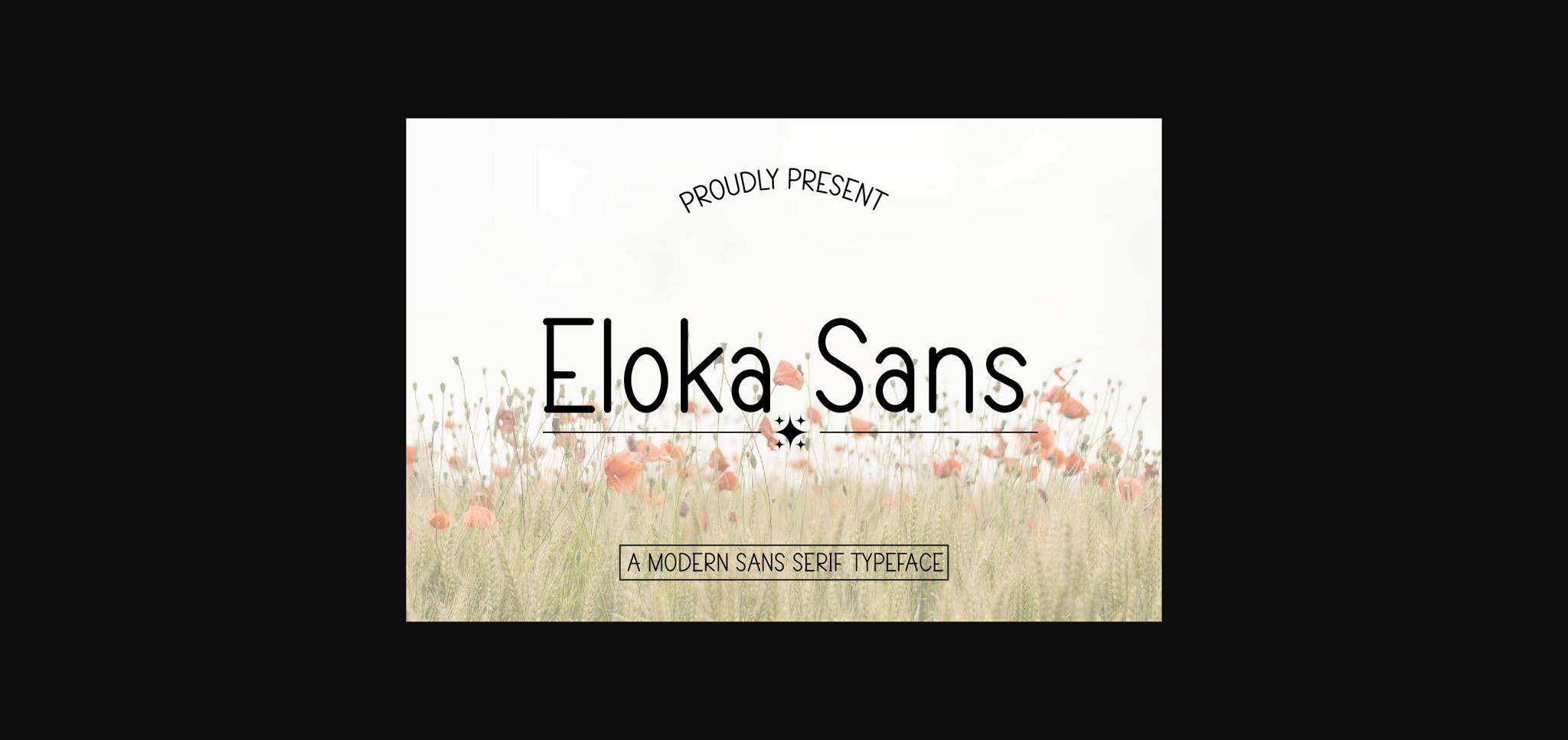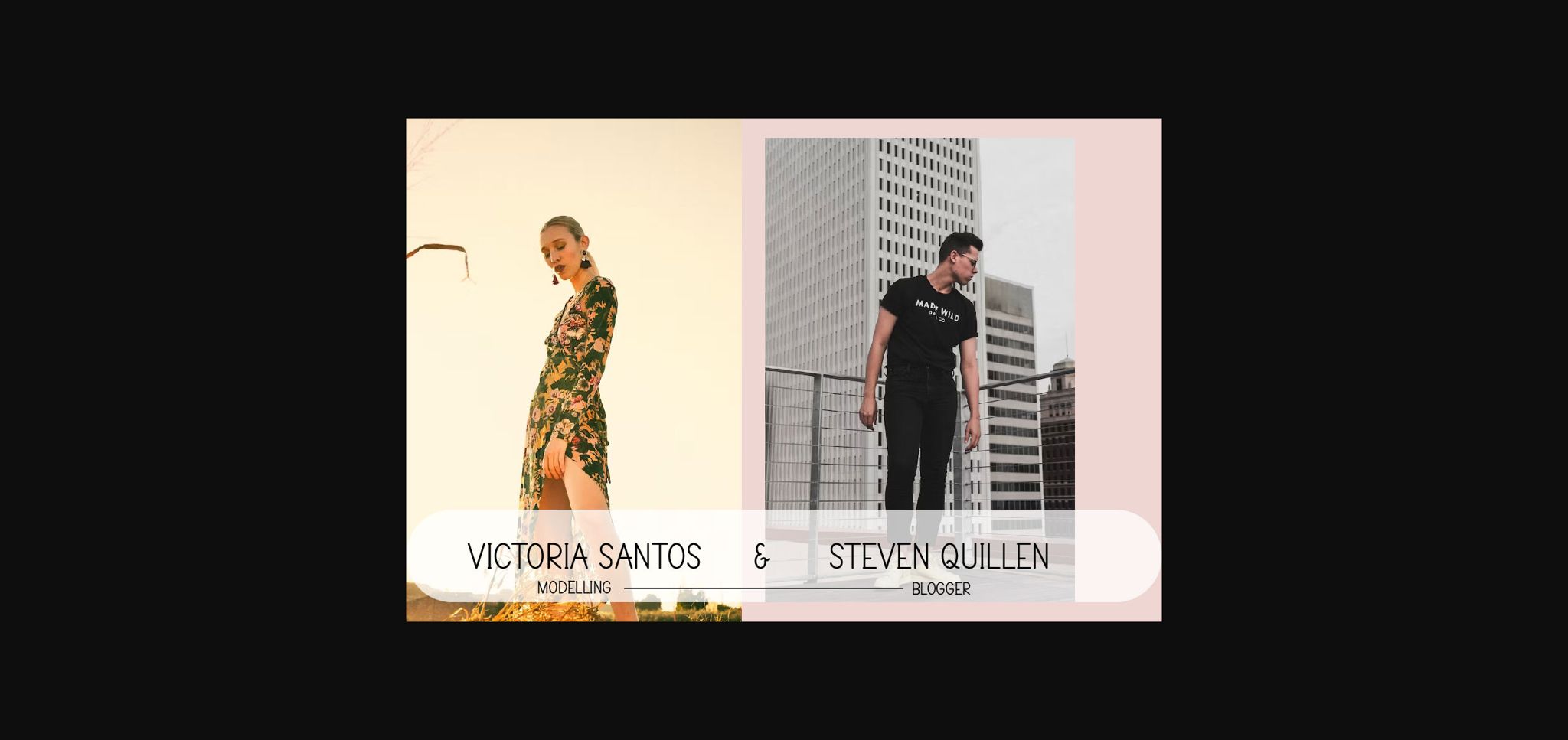
About Eloka Sans Font
A Sans Serif font with a cute line style. This font was created with the inspiration for the Back To School theme. so, this font is really cool for craft needs about the Back To School theme. such as bags, book covers, books, labels, schedules, planners, KDP, to-do lists, clippings, stickers, crafts, Cricut, branding, wall hangings, learning needs, and many other ideas